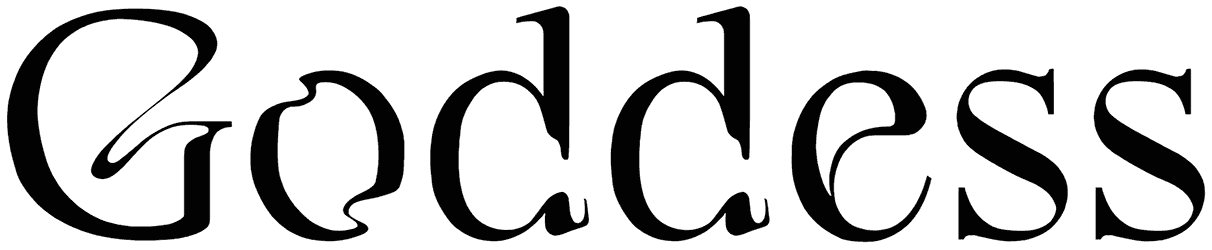
MGN Goddess Font
You can easily play God when you’re working with MGN Goddess. Especially with those wavy details in its structure, it’s gonna be like you can control water! Everything you write with its modern characters is going to feel as divine as the reflection of sunlight over the surface of the sea. Isn’t that just inspiring?
So you’re lucky if you have an art gallery to promote or some other innovative project, because that’s where you can benefit from this yoga font.